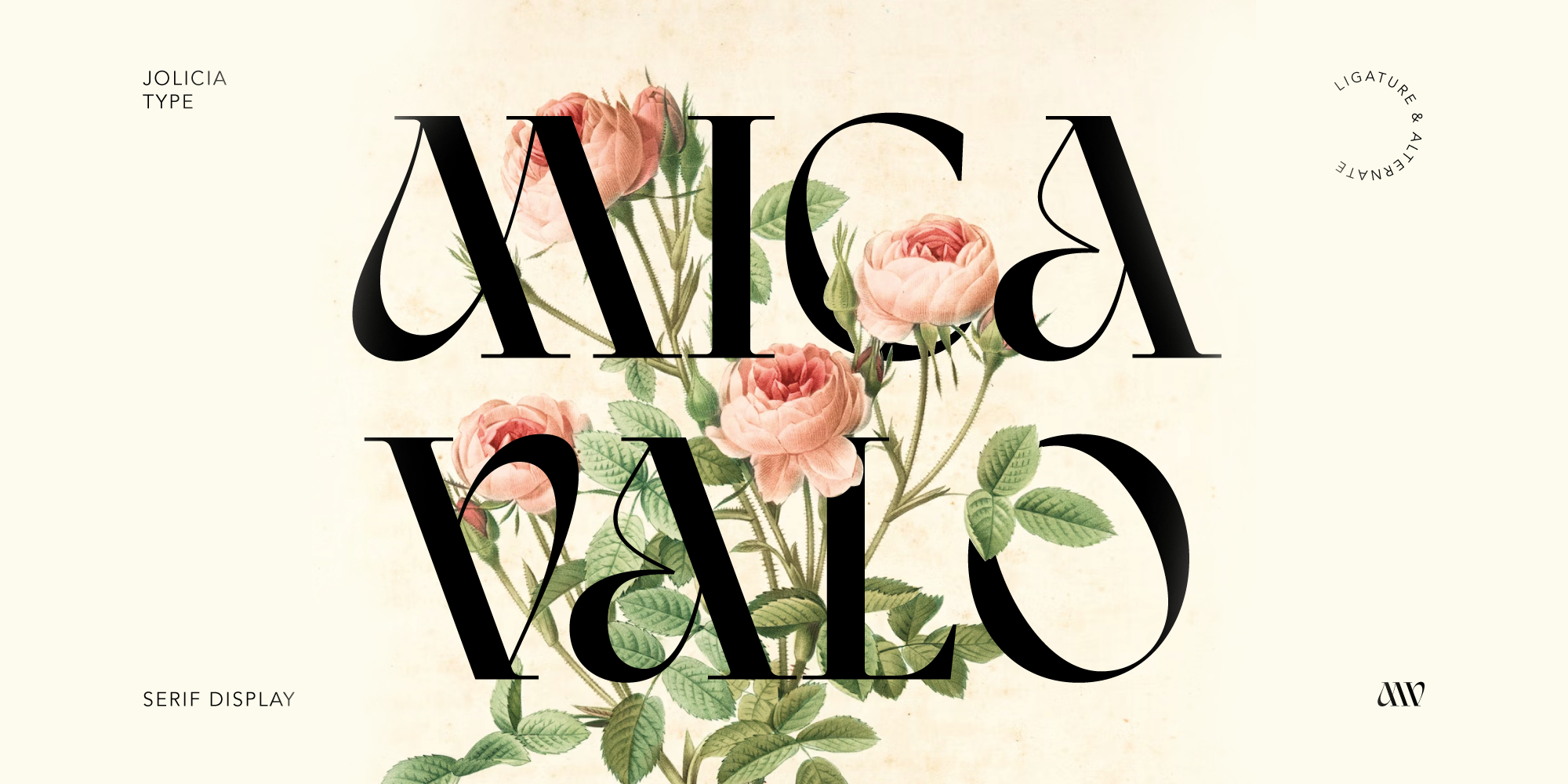
Mica Valo Font is perfect for mineral collection labels, geological research publications, crystalline jewelry packaging, gemstone shop branding, precious stone certifications, luxury mineral displays, earth science materials, crystal healing centers, sparkling cosmetic products, and luminously radiant marketing communications.
Mica Valo Font is exciting because it captures the crystalline beauty and mineral brilliance of precious geological formations with its luminously structured letterforms that seem to shimmer with the natural sparkle of mica sheets and reflect the pristine clarity that makes rare minerals so captivating to collectors and scientists alike. Its crystallinely precise character design reflects both the geological patience required for mineral formation and the scientific precision needed to study Earth's most beautiful treasures, making it perfect for brands celebrating natural beauty and scientific wonder.
Mica Valo Font family includes thin, light, regular, medium, bold, and black weights, each with corresponding italic versions. The font family also features mineral-inspired ornaments, crystalline ligatures, geological symbols, and sparkling decorative elements that enhance its luminous aesthetic and earth science versatility.
This luminously precise typeface represents the perfect fusion of geological accuracy and natural beauty. Mica Valo Font Free Download enables designers to experience its crystalline appeal before making a commercial commitment. The font's ability to convey both scientific precision and natural sparkle makes it ideal for geological institutions, mineral dealers, and luxury brands targeting audiences fascinated by Earth's natural treasures and crystalline beauty.
Whether you're developing geological research identities, creating mineral collection materials, or designing crystal-focused communications, Mica Valo Font brings an unmistakable sense of natural brilliance and scientific precision to every project. Its sparkling character and mineral heritage create powerful connections that captivate audiences seeking authentic natural beauty and geological wonder.
The font's versatility excels in scientific and luxury environments where precision and natural beauty are equally valued. Its crystalline character makes it particularly effective for geological museums, mineral dealers, jewelry stores, and luxury brands seeking to establish authentic relationships with collectors and audiences passionate about Earth's natural treasures and crystalline formations.
For designers working on projects requiring genuine geological character and mineral appeal, Mica Valo Font offers an exceptional solution. Its luminously precise presence and comprehensive mineral-themed elements provide the tools needed for creating truly sparkling communications, while its crystalline beauty ensures your designs capture the natural brilliance and scientific wonder that defines the most precious geological formations and mineral treasures.